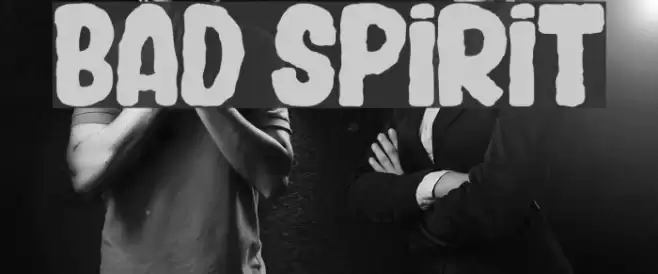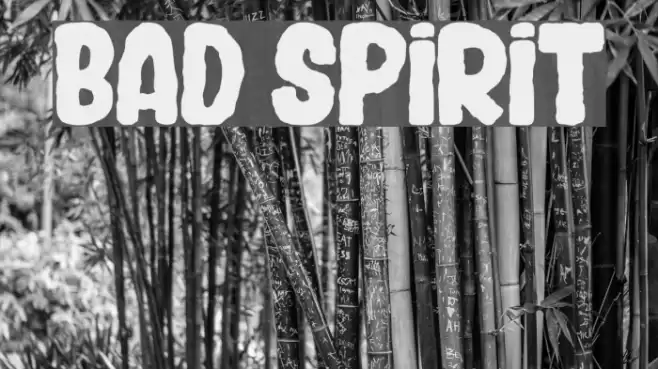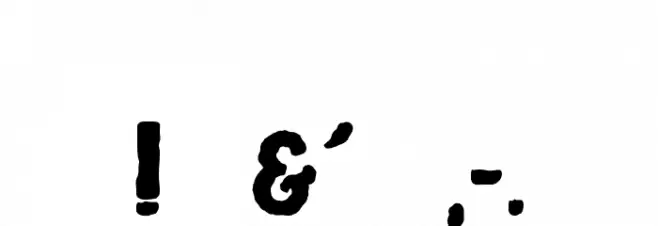
BAD SPIRIT Font
BAD SPIRIT Description
This font features a bold and rugged style with thick, uneven strokes that give it a hand-drawn appearance. The characters are heavily weighted, with a slightly distressed look that adds to its organic and dynamic feel. The uppercase and lowercase letters maintain a consistent boldness, while the numbers and special characters follow the same aesthetic, ensuring uniformity across all glyphs. The font's unique style makes it stand out, suitable for projects that require a strong visual impact. Its playful yet assertive design is perfect for creative and unconventional uses.
A bold, rugged font with a hand-drawn, distressed appearance from Uncategorized fonts.
- Proposed Projects: Ideal for posters, album covers, branding for edgy products, and creative advertising campaigns.